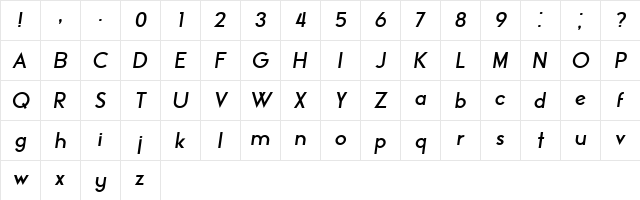
Official Book Italic
Design Context for Official Book Typeface
Official Book is a composed and adaptable typeface that performs quietly and consistently across a wide range of design contexts. The dynamic lean of this cut emphasises speed and emphasis in any layout.
Pro Tip: Try Official Book for annotation and caption copy alongside an upright companion — the contrast in angle creates a dynamic but ordered typographic system.